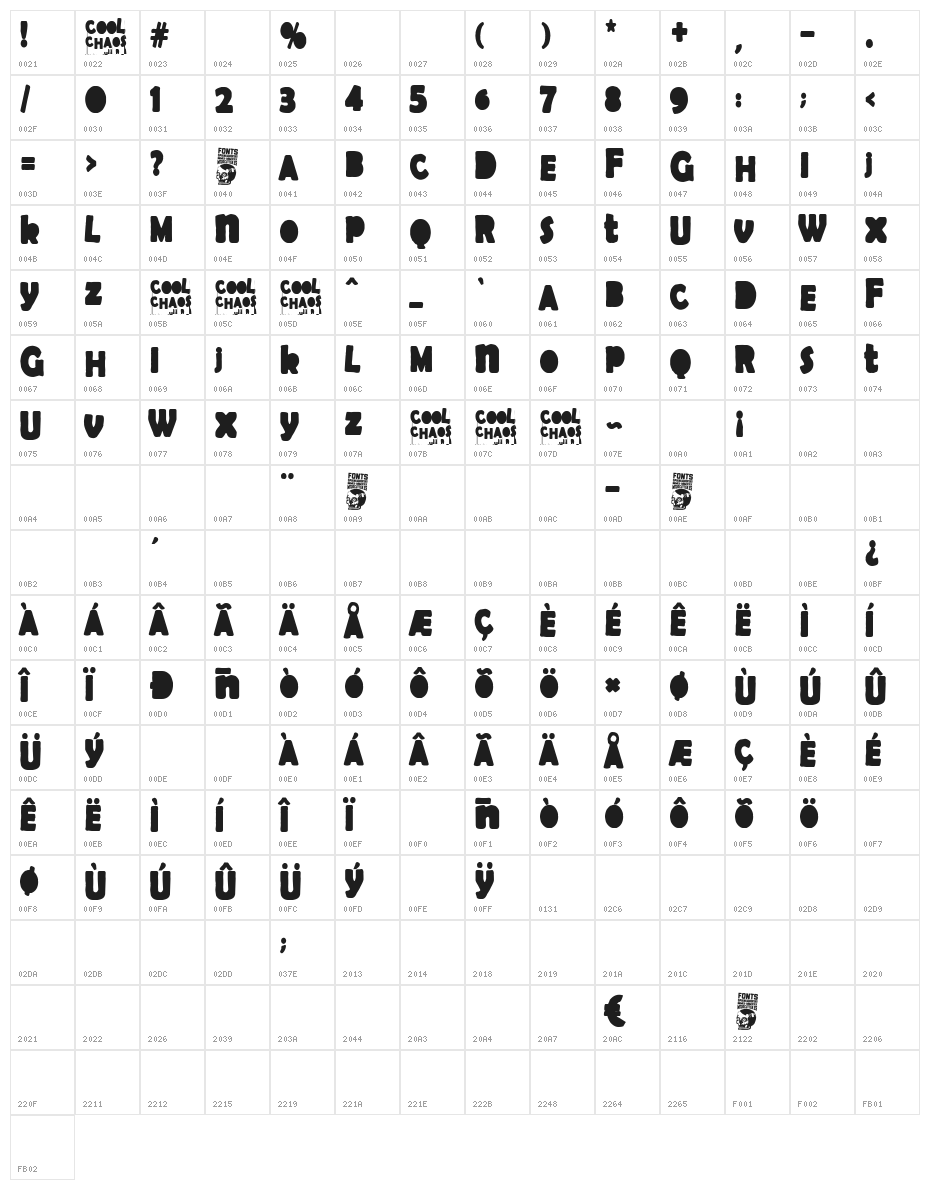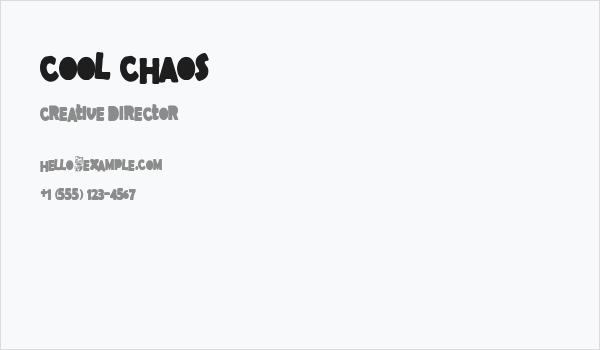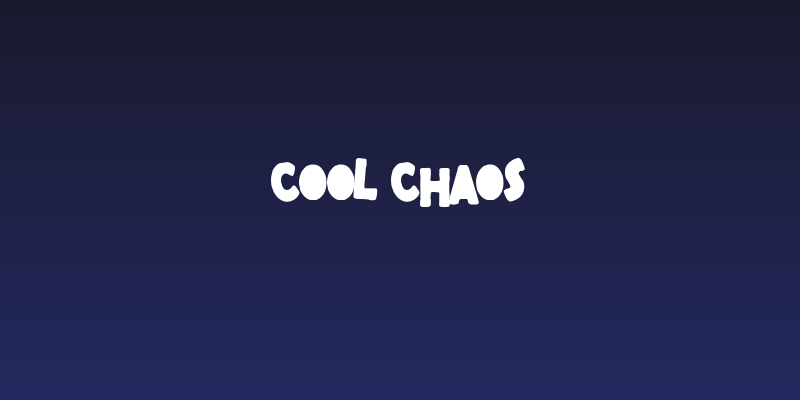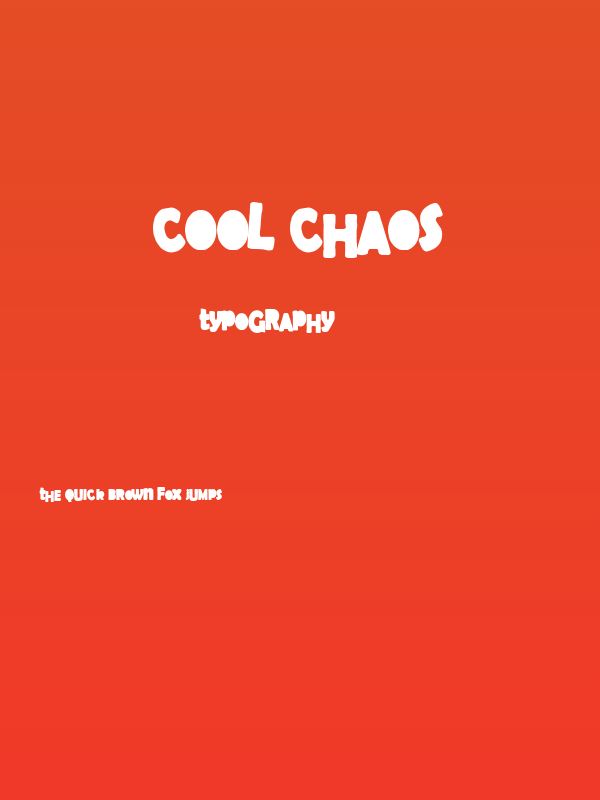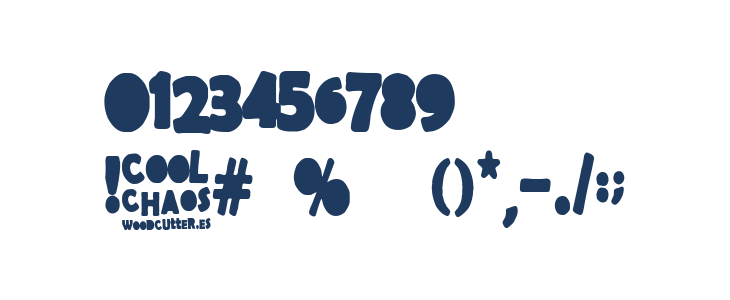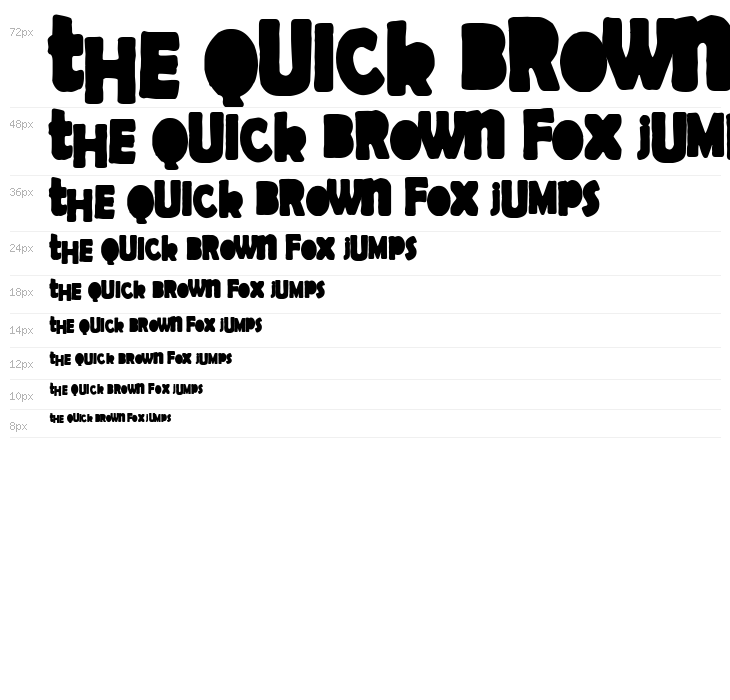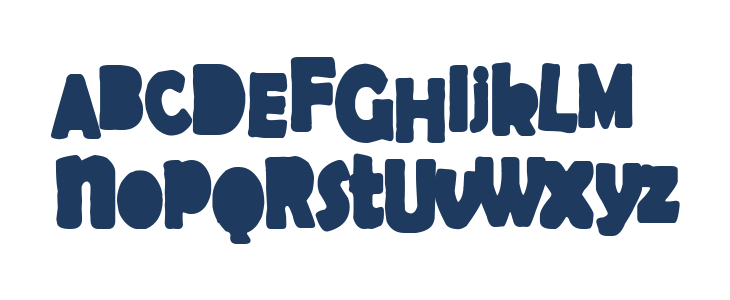
Cool Chaos Font
Cool Chaos Description
This font features a bold and playful design, characterized by its irregular and chunky letterforms. The letters have a hand-drawn appearance, with uneven edges and varying widths, giving it a whimsical and chaotic feel. The uppercase and lowercase letters maintain a consistent style, with exaggerated curves and a slightly compressed form. The numbers and special characters follow the same playful aesthetic, making the font suitable for creative and informal projects. Its boldness ensures high visibility, making it ideal for attention-grabbing designs.
| Use Case | Headlines, Posters, Branding |
| Proposed Projects | Perfect for children's books, playful branding, posters, and creative social media graphics. |